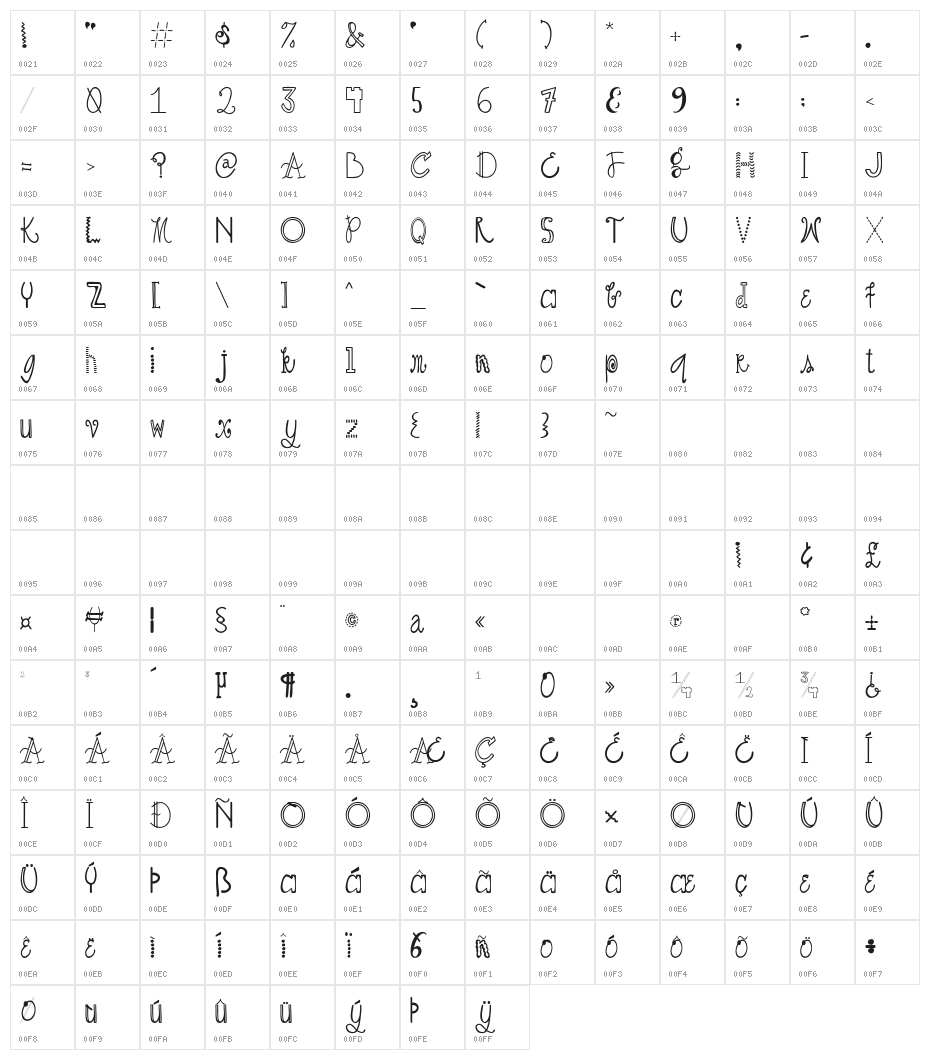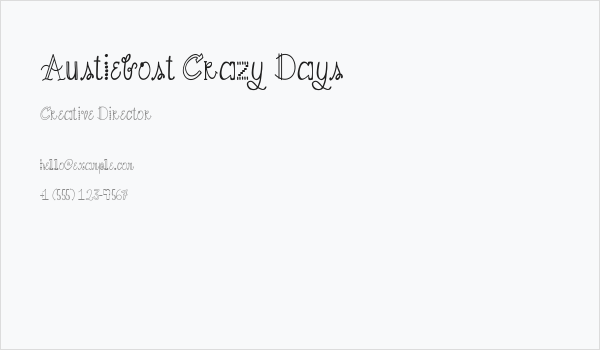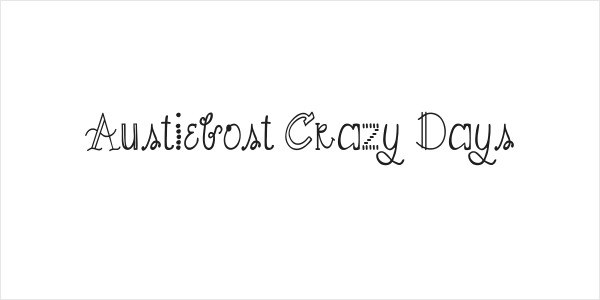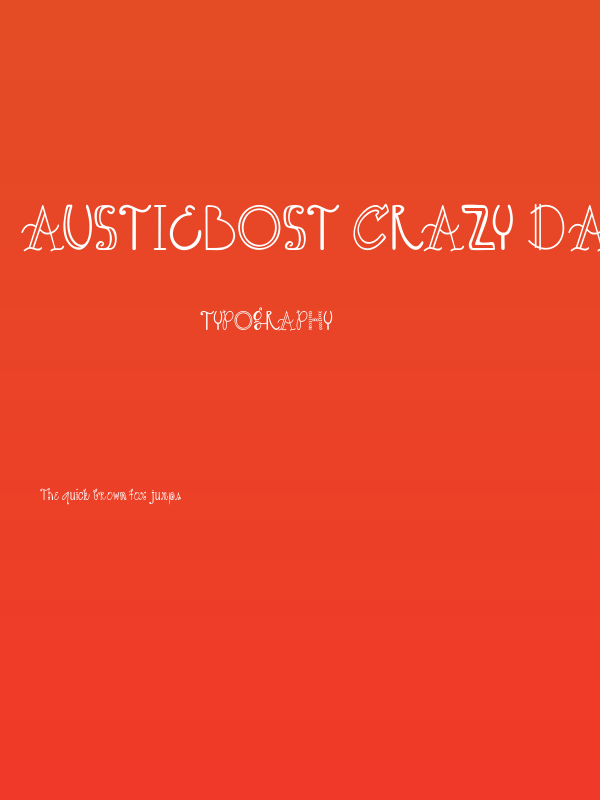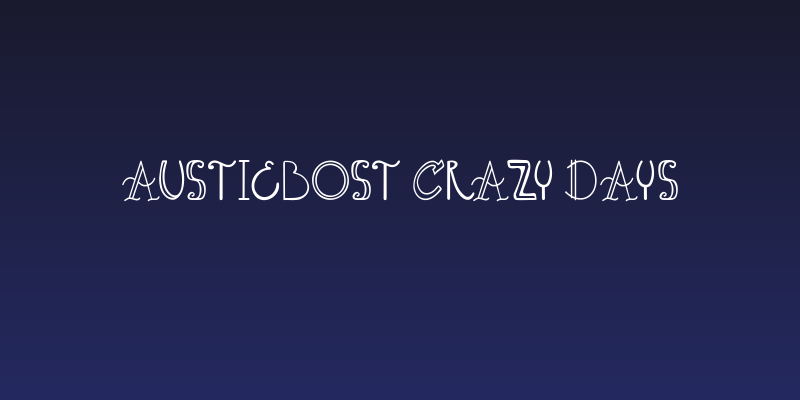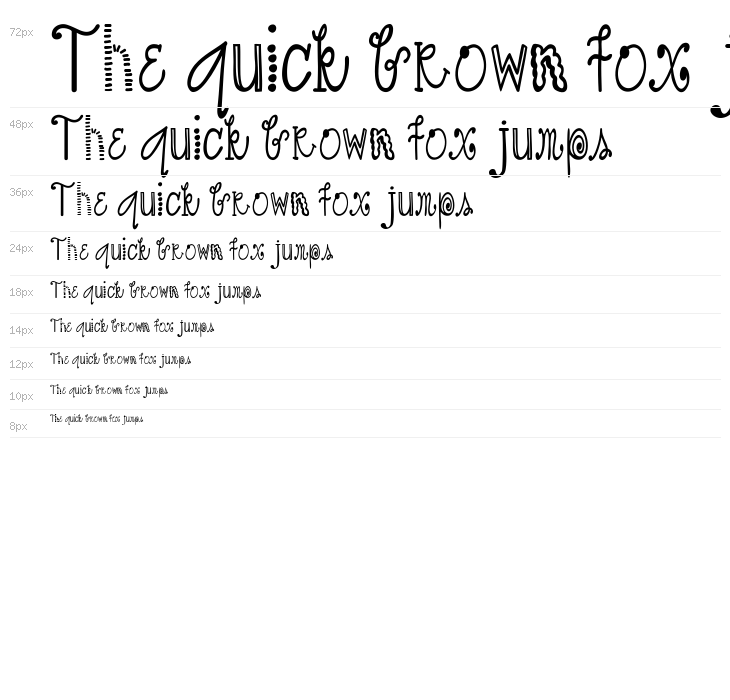
Austiebost Crazy Days Font
Austiebost Crazy Days Description
This font is a playful and eclectic mix of styles, featuring a variety of whimsical and decorative elements. Each character is uniquely crafted, with some letters incorporating dots, swirls, and zigzag patterns, creating a lively and dynamic appearance. The uppercase letters are bold and varied, while the lowercase letters maintain a quirky charm. Numbers and special characters follow the same playful theme, adding to the font's overall eccentricity. This font is perfect for projects that require a fun and unconventional look.